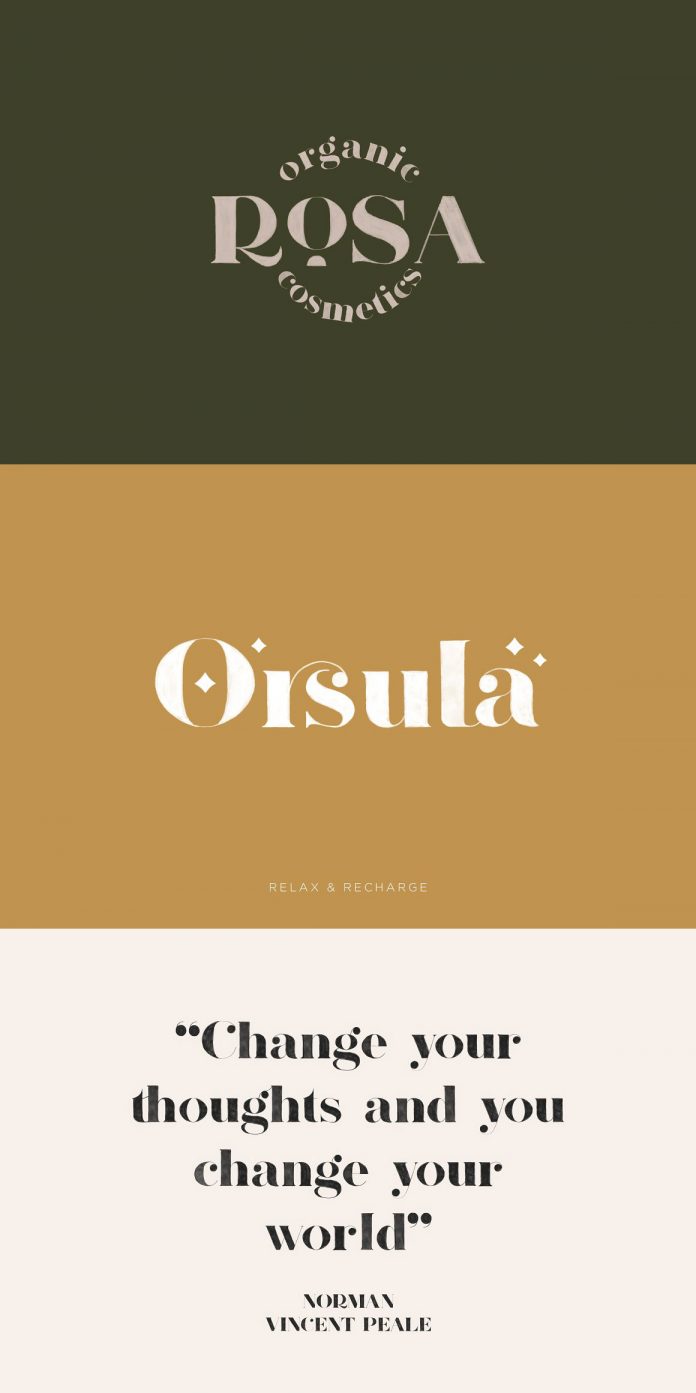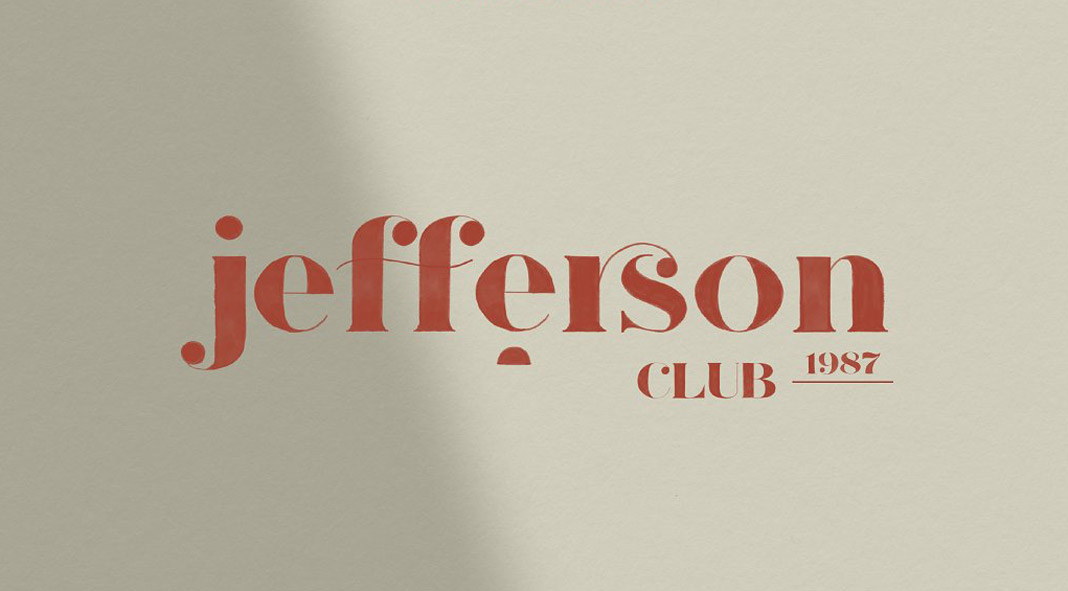
Graphic designer and illustrator Elvina Gafarova has created a lovely vintage-inspired and highly decorative OpenType SVG font named “Jefferson”.
Made for display usage such as signage or striking headlines with a unique vintage-inspired appearance, this newly designed OpenType SVG font by Elvina Gafarova masterfully combines handmade details with elegant styles.